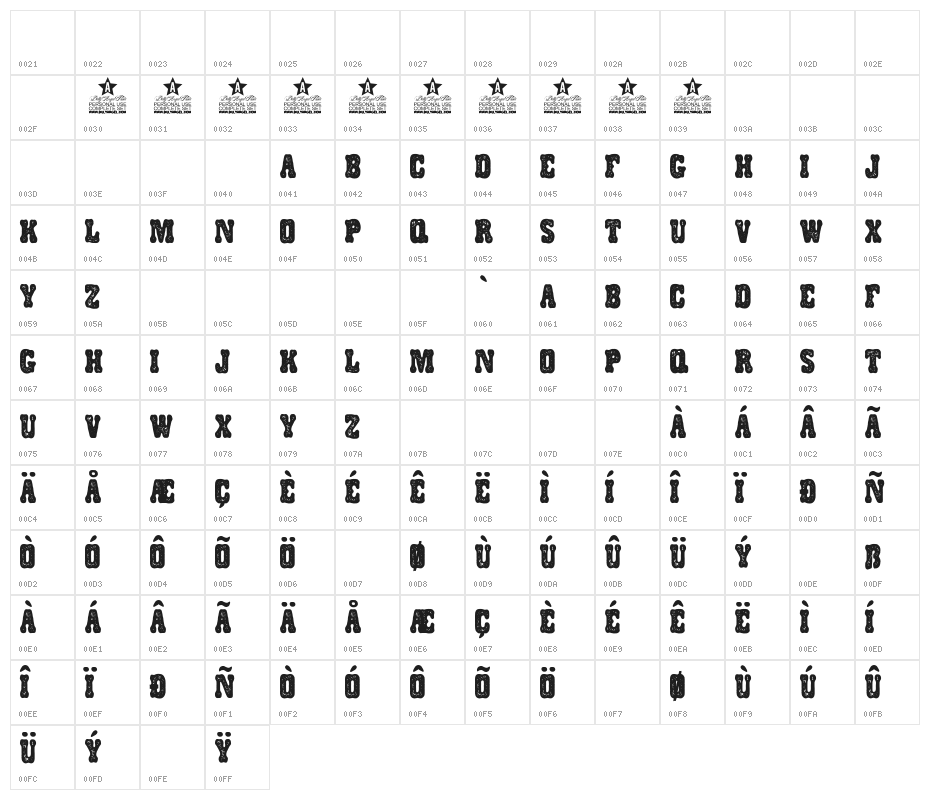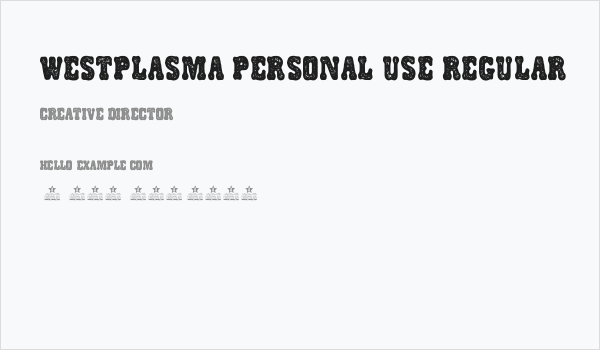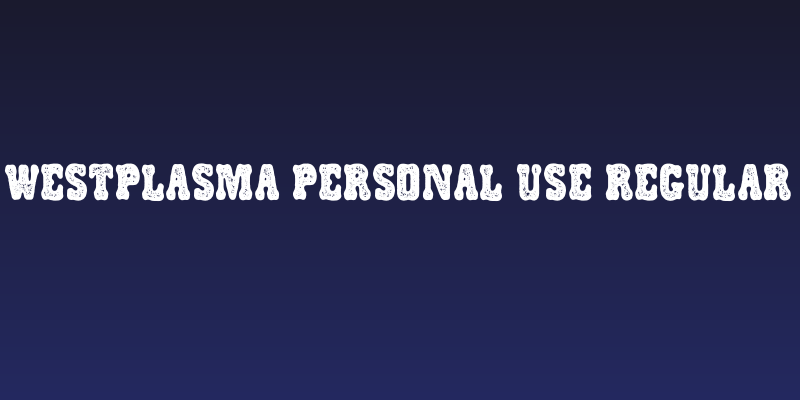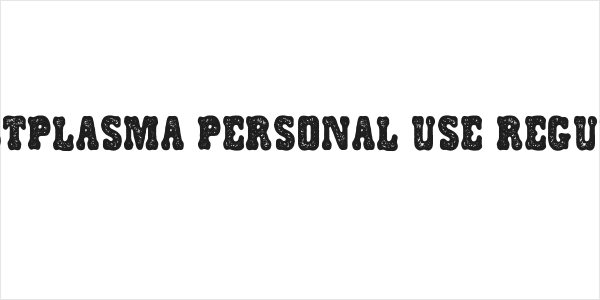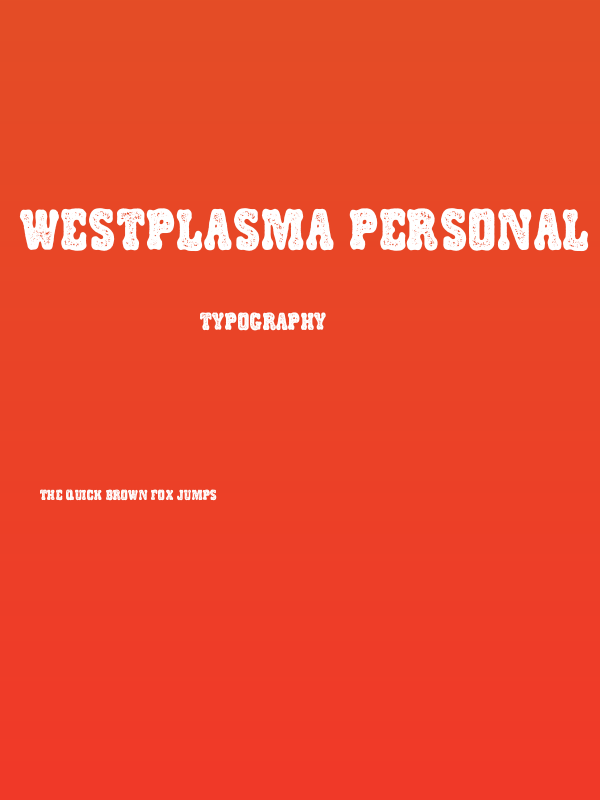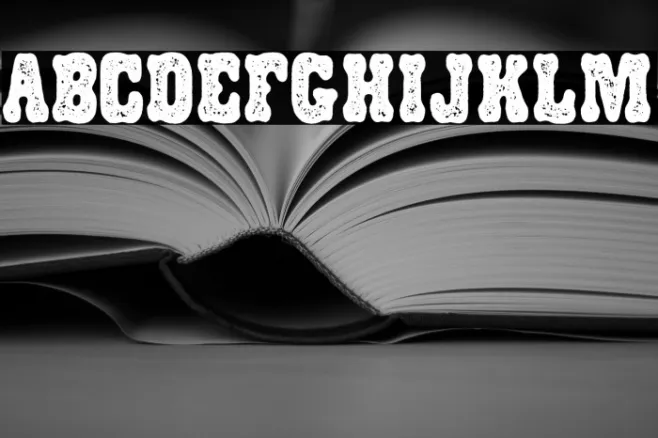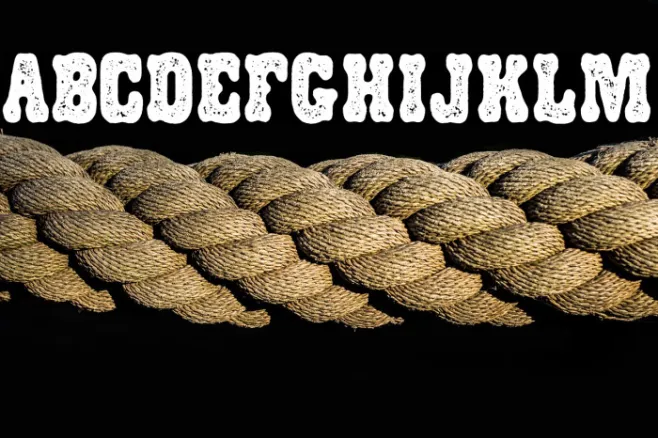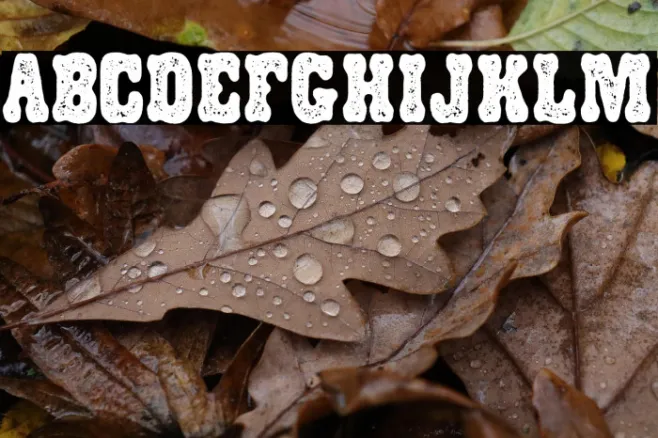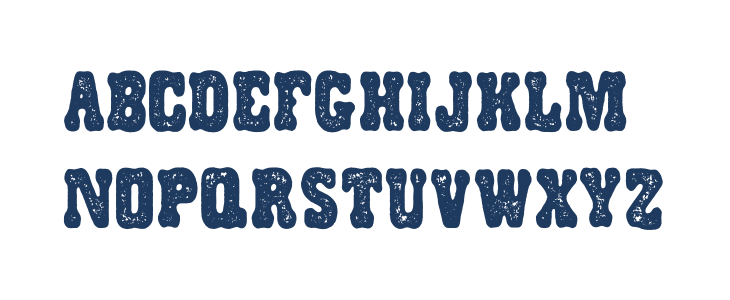
WESTPLASMA PERSONAL USE Regular Font
WESTPLASMA PERSONAL USE Regular Description
This font features a bold and rugged style with a textured appearance, reminiscent of distressed or weathered surfaces. The uppercase letters are prominent and have a strong presence, making them suitable for impactful designs. The font's unique texture adds a vintage or grunge feel, perfect for projects that require a bold statement. The characters are well-defined, with consistent spacing that maintains readability despite the distressed look. This font is ideal for creative projects that aim to capture attention with a distinctive and artistic flair.
| Proposed Projects | Ideal for posters, album covers, branding, and any design needing a bold, artistic touch. |